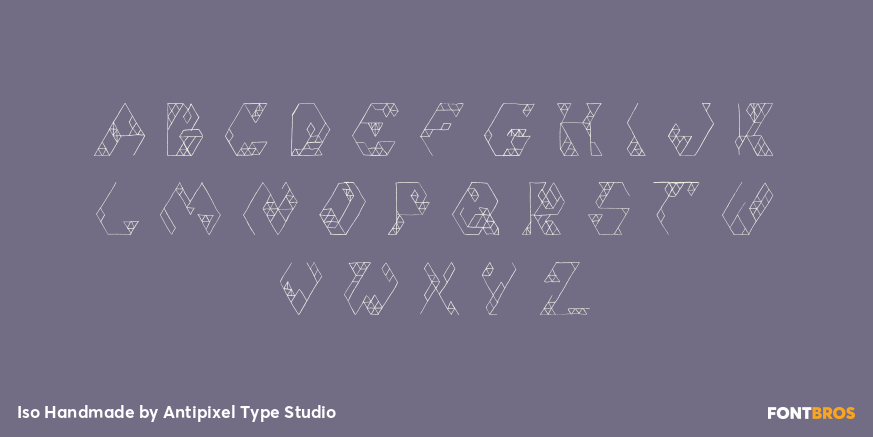
Iso Handmade
Font Family by Antipixel Type Studio
Iso Handmade is a decorative display font with an isometric, outline-driven look that feels geometric, angular, and distinctly modern. Its abstract, tech-inspired character gives layouts a clean but experimental edge, making it a strong choice when you want lettering to feel artistic, minimalist, and visually constructed.
With its single handmade style, this family is especially well suited to posters, branding, packaging, social graphics, and other display work where a distinctive digital-style voice can carry the design. The outlined forms keep it light on the page while still delivering plenty of personality.
Created by Antipixel Type Studio, this design brings together decorative energy and geometric control in a way that feels contemporary and unconventional without losing clarity.